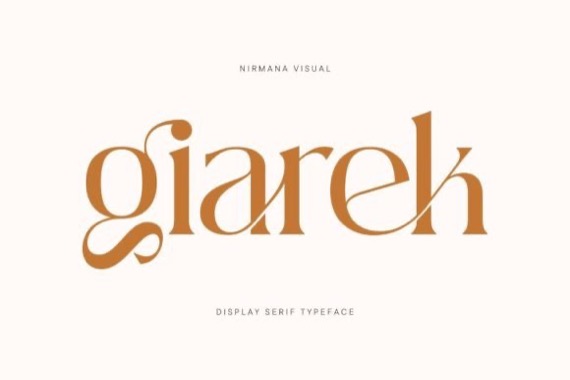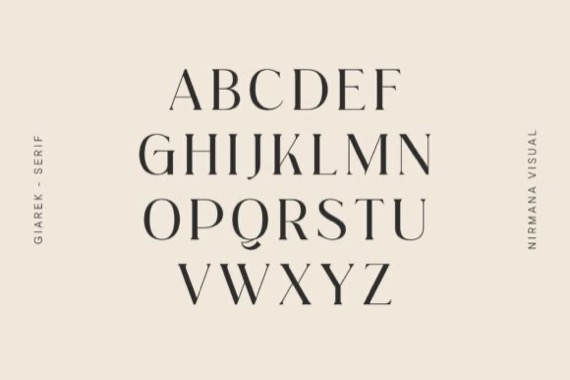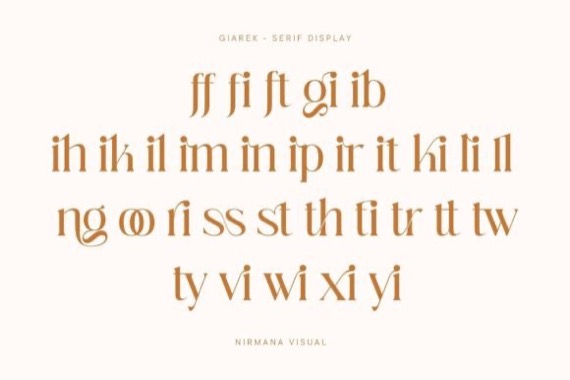
Introducing our exquisite elegant style font, it was created and shared by Sigit Dwipa, designed to bring sophistication and grace to your designs. With its refined letterforms, delicate curves, and timeless beauty, this font is perfect for projects that require a touch of elegance and class.
Inspired by the elegance of classic typography and the beauty of calligraphy, this font exudes a sense of refined aesthetics. Its graceful strokes and balanced proportions make it an excellent choice for luxury branding, high-end invitations, editorial design, and formal occasions.
Giarek Display Serif Font